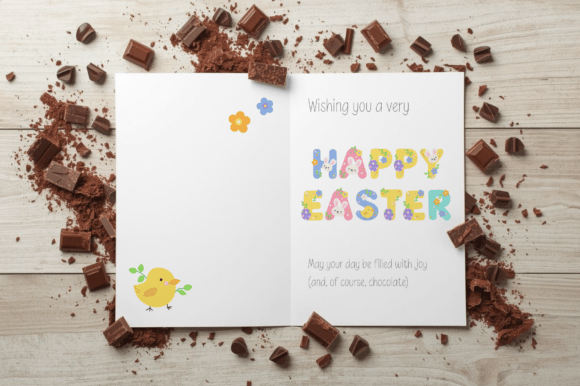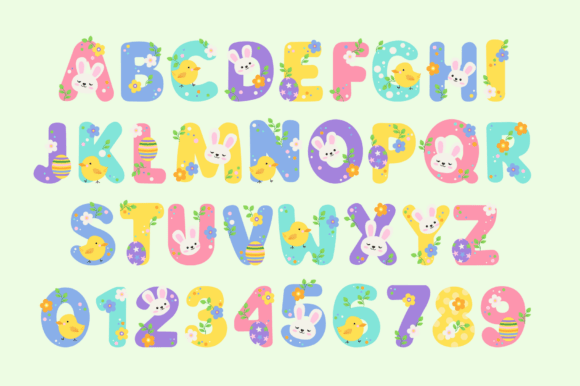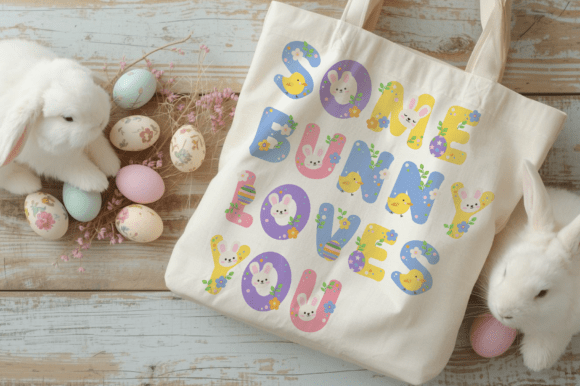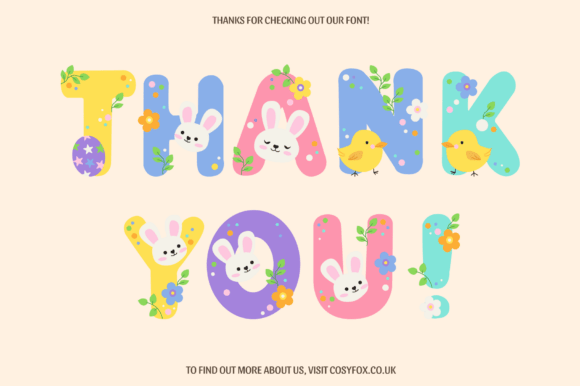
Introducing Hello Easter Font: The Perfect Addition to Your Springtime Designs
Are you looking for a font that captures the essence of springtime and brings a touch of warmth and cheerfulness to your designs? Look no further than Hello Easter Font, a delightful, hand-illustrated font that’s perfect for greeting cards, seasonal designs, and any project that needs a little bit of Easter charm.
A Cute and Playful Font for Springtime Designs
Hello Easter Font is a cute, playful font that’s filled with soft curves and gentle, hand-drawn details. Its unique design makes it an ideal choice for cosy, feel-good projects that require a light and cheerful touch. Whether you’re creating Easter-themed designs, Mother’s Day cards, or simply want to add a springtime flair to your projects, Hello Easter Font is the perfect choice.
What Makes Hello Easter Font Special?
Each letter in Hello Easter Font carries a sense of warmth, like something made slowly and thoughtfully, ready to be shared. The font’s hand-drawn details and soft curves give it a personal, homemade feel that’s perfect for designs that require a touch of personality. Whether you’re a designer, crafter, or DIY enthusiast, Hello Easter Font is a lovely little addition to your creative toolkit.
Perfect for Greeting Cards and Seasonal Designs
Hello Easter Font is specifically designed with greeting cards and seasonal designs in mind. Its cheerful and heartfelt vibe makes it perfect for Easter-themed designs, Mother’s Day cards, and other springtime projects. The font’s playful, illustrated style also makes it ideal for children’s party invitations, baby shower cards, and other fun, celebratory designs.
Why Choose Hello Easter Font?
- Cute and playful design: Hello Easter Font features a unique, hand-illustrated design that’s both cute and playful.
- Soft curves and gentle details: The font’s soft curves and gentle details give it a warm, homemade feel.
- Perfect for springtime designs: Hello Easter Font is specifically designed for springtime designs, including Easter-themed designs and Mother’s Day cards.
- Cheerful and heartfelt vibe: Hello Easter Font has a cheerful and heartfelt vibe that’s perfect for designs that require a personal touch.
- Easter-themed designs
- Mother’s Day cards
- Children’s party invitations
- Baby shower cards
- Springtime greeting cards
Hello Easter Font is a delightful, hand-illustrated font that’s perfect for springtime designs. Its cute, playful design and soft curves make it an ideal choice for greeting cards, seasonal designs, and any project that needs a little bit of Easter charm. With its cheerful and heartfelt vibe, Hello Easter Font is a great addition to your creative toolkit.